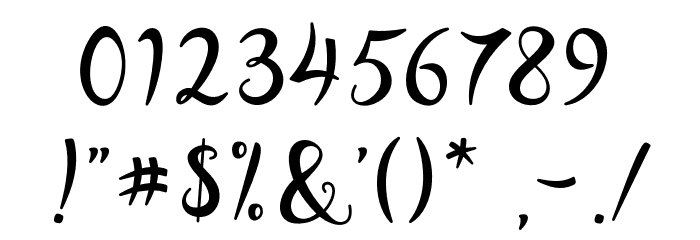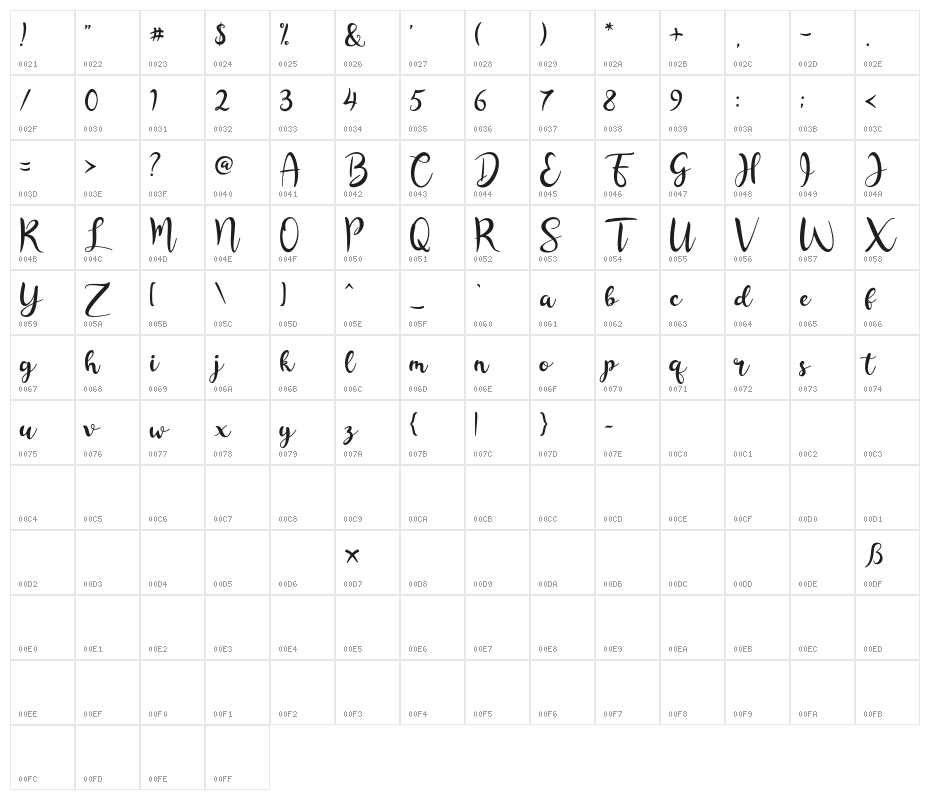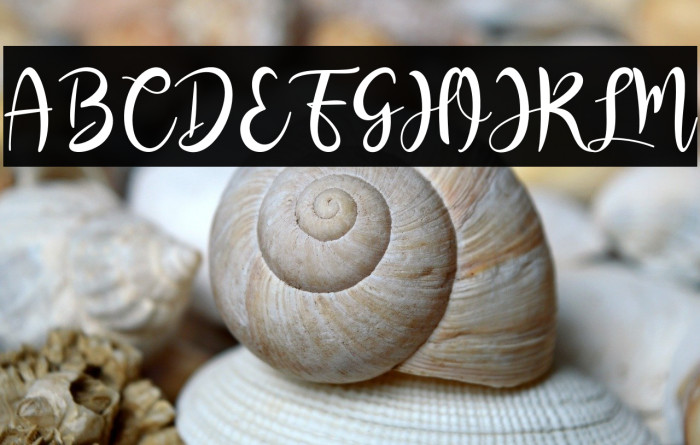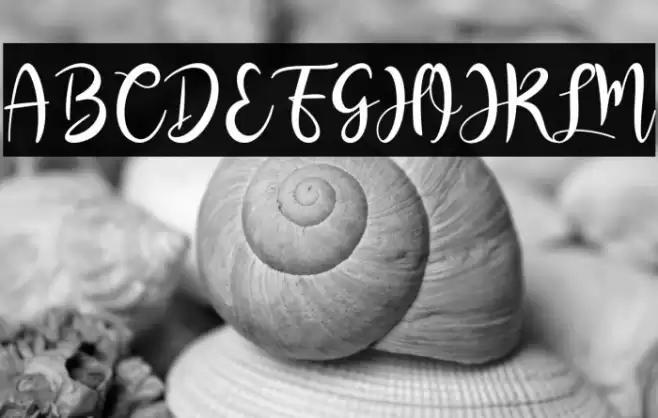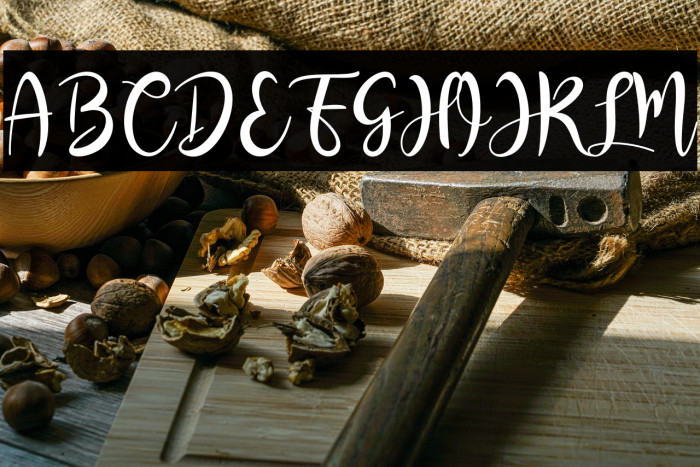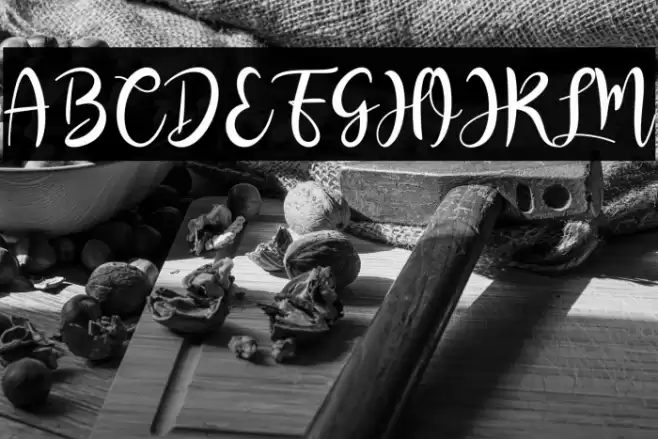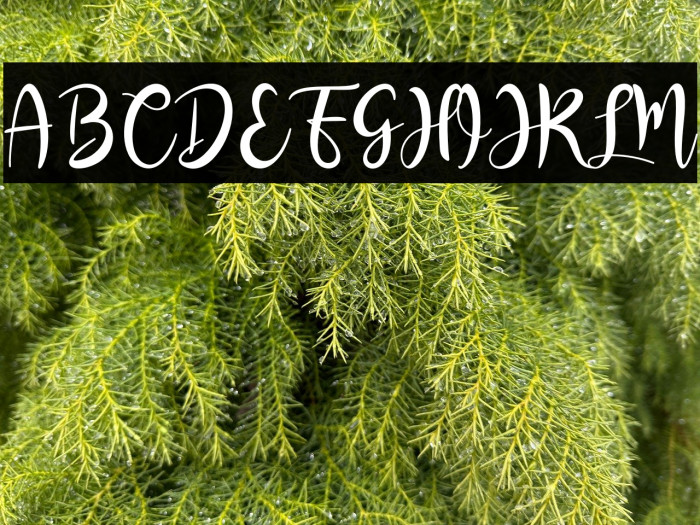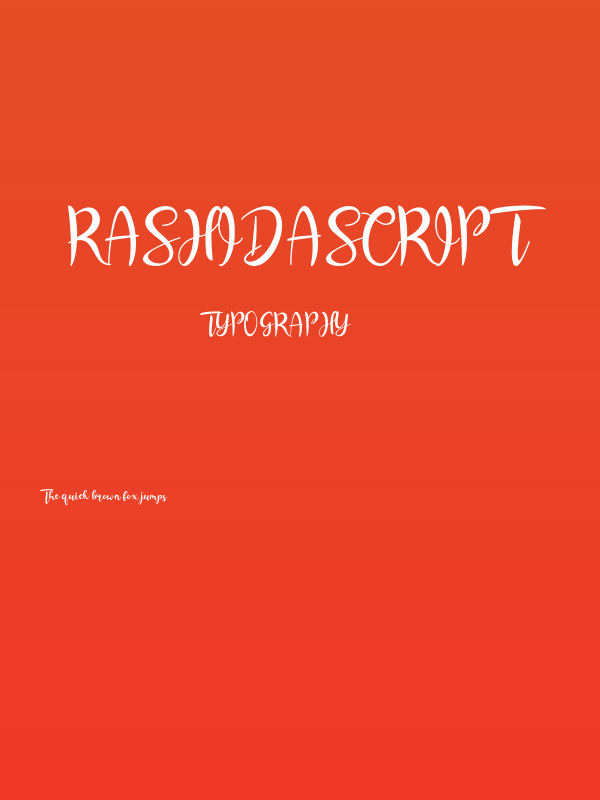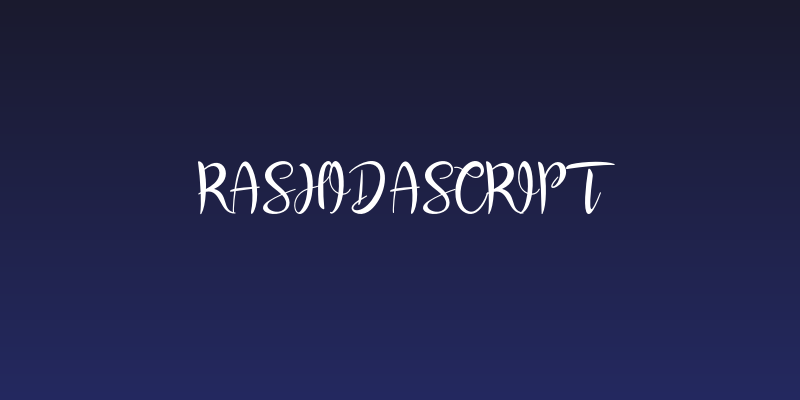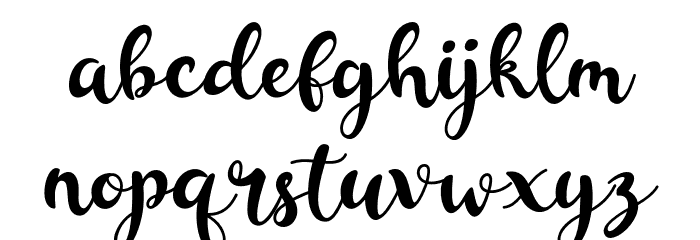
RashidaScript Font
RashidaScript Description
This font exudes a lively and elegant script style, characterized by its fluid, cursive strokes and a sense of movement. The uppercase letters are bold and expressive, with sweeping curves and loops that give a sense of sophistication and flair. The lowercase letters maintain a consistent flow, with some characters featuring distinctive flourishes that add to the overall charm. The numerals are clear and stylish, complementing the alphabet with their rounded forms. Special characters are designed with the same attention to detail, ensuring a cohesive look across all elements.
| Proposed Projects | Ideal for wedding invitations, greeting cards, branding projects, and elegant packaging designs. |